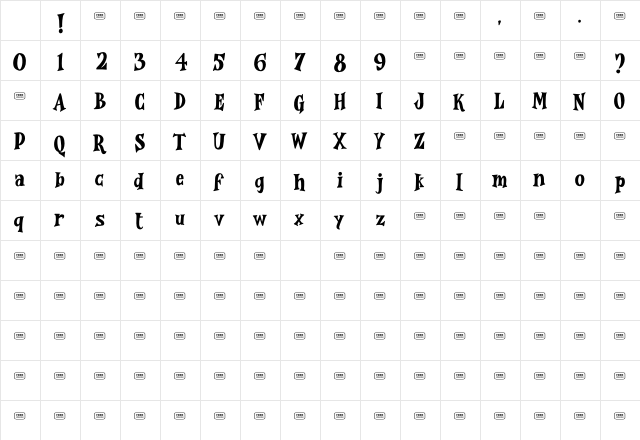
Complete Wonder Magic Free Trial Regular glyph index. Displaying only characters natively supported by Wonder Magic Free Trial Regular font.
Wonder Magic Free Trial is a composed and adaptable typeface that performs quietly and consistently across a wide range of design contexts.